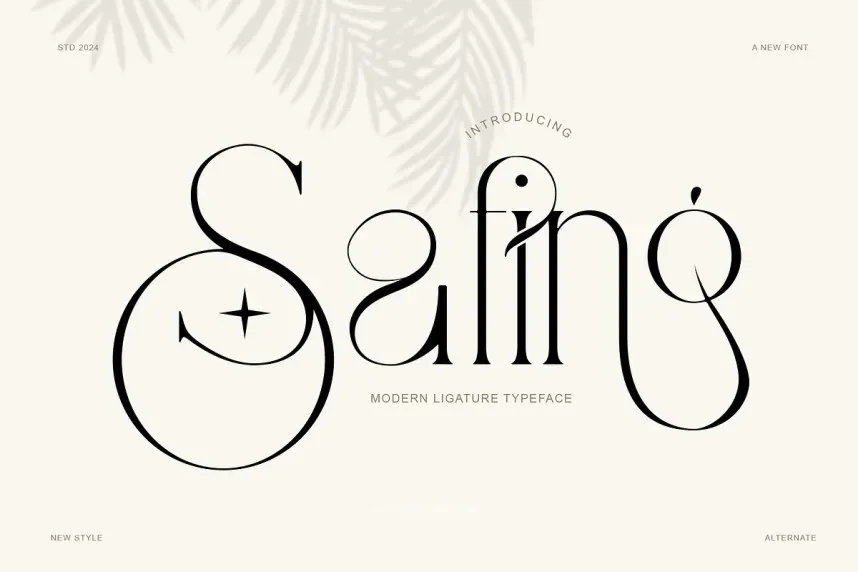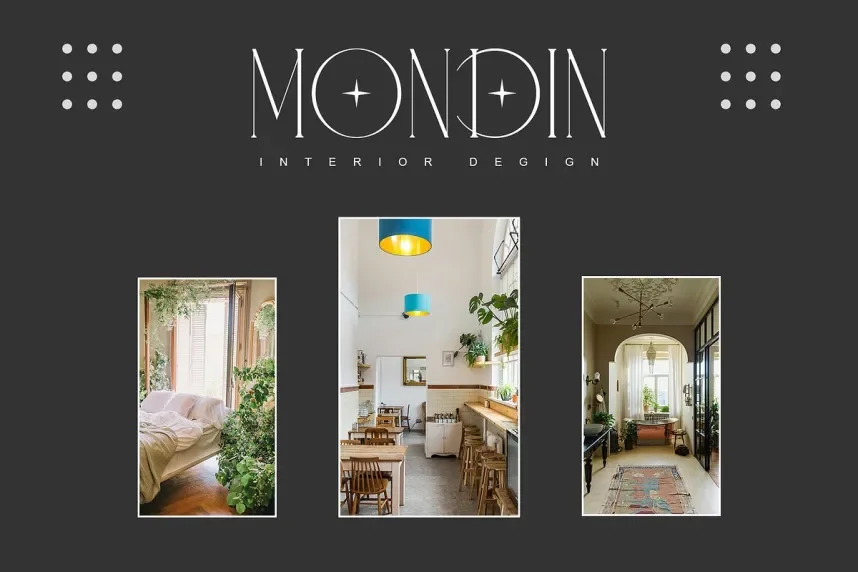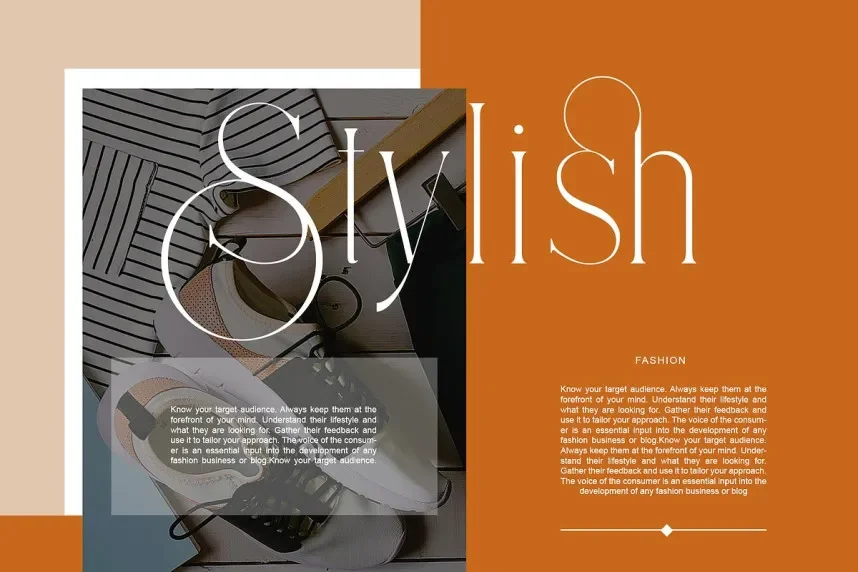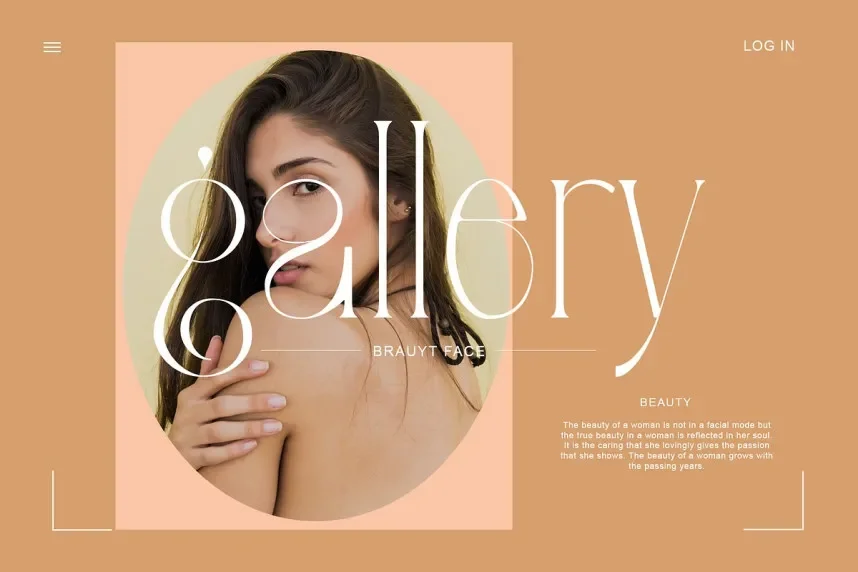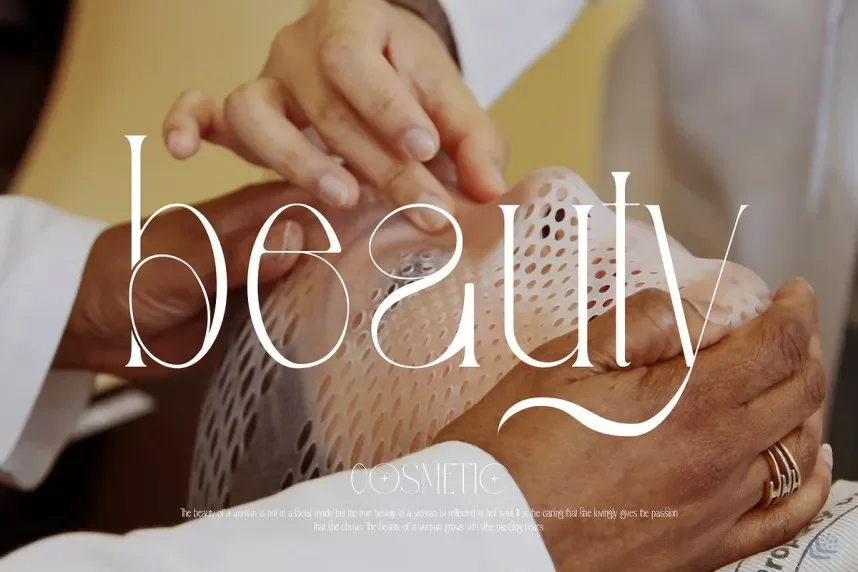
Safing Font is a modern sans-serif typeface with clean, geometric lines and balanced proportions. It offers excellent readability, making it ideal for use in websites, apps, and branding materials that require a professional yet approachable look.